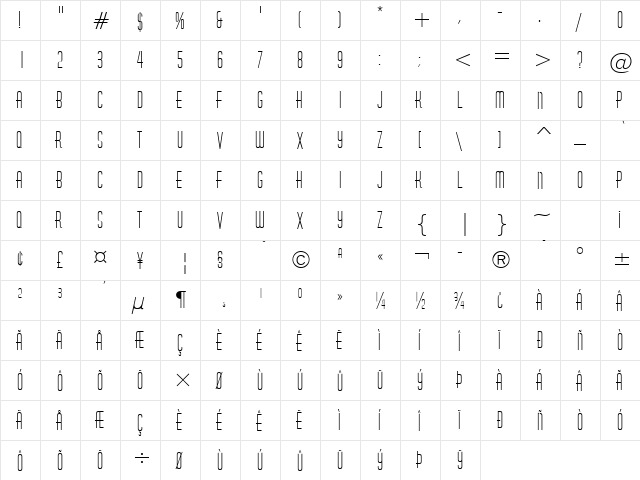
Joe 16 Regular Font Preview
Joe 16 Regular
Design Context for Joe 16 Typeface
Joe 16 is a composed and adaptable typeface that performs quietly and consistently across a wide range of design contexts.